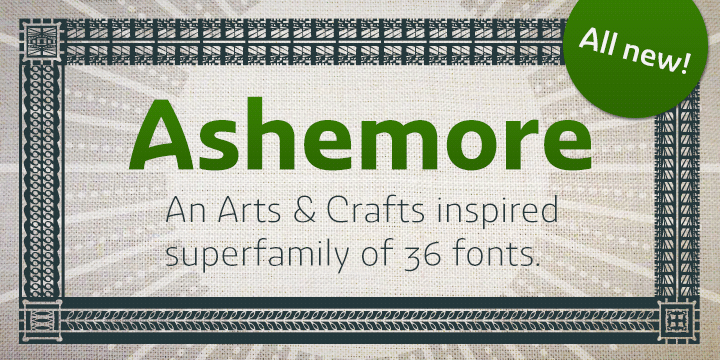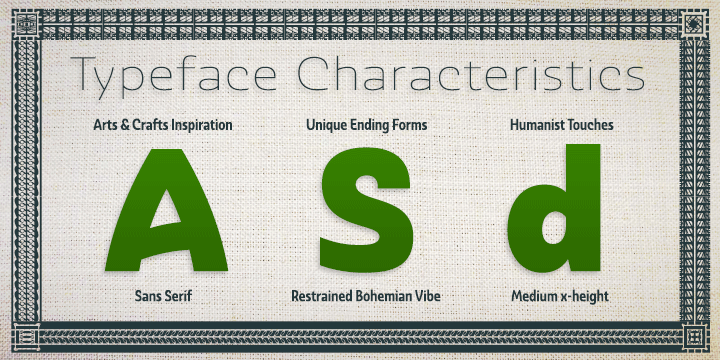
About Ashemore
Ashemore developed as a result of my visits to Barcelona, Spain and to Germany, followed soon after by a visit to Asheville, North Carolina. Blending the styles of art and architecture from these three areas may seem initially to result in an unusual…